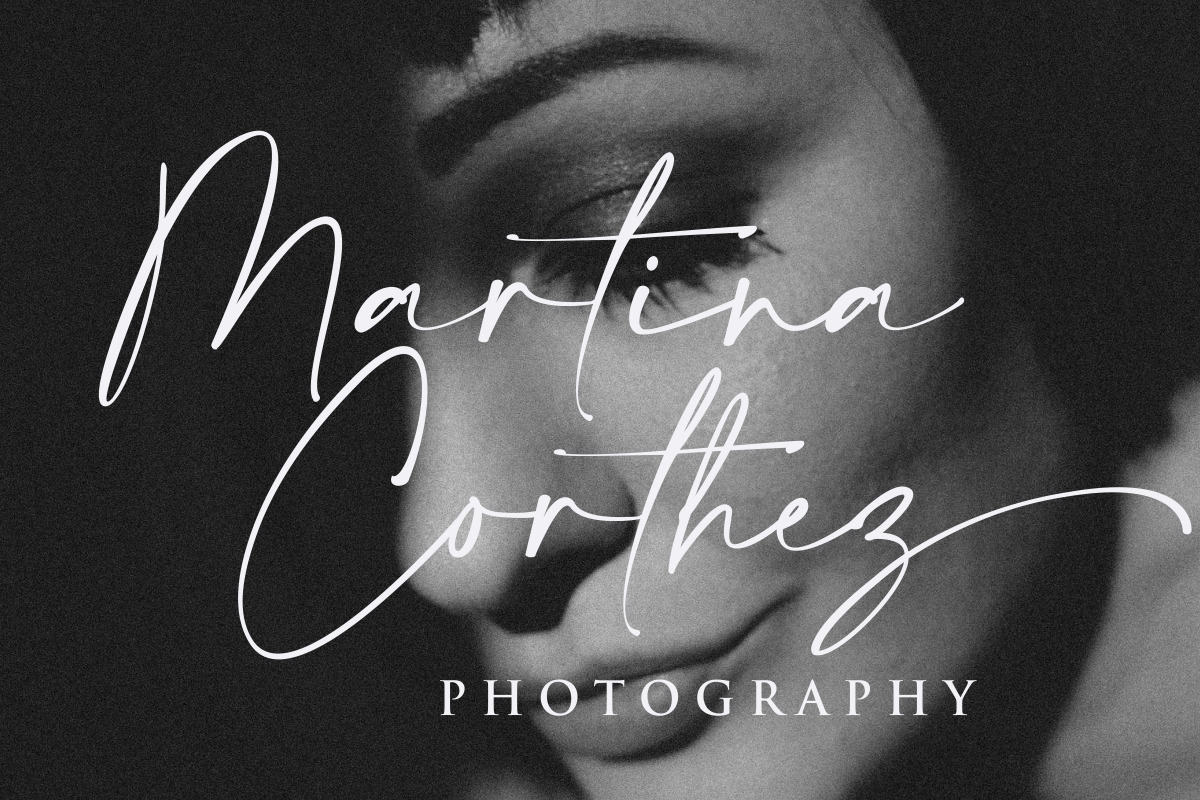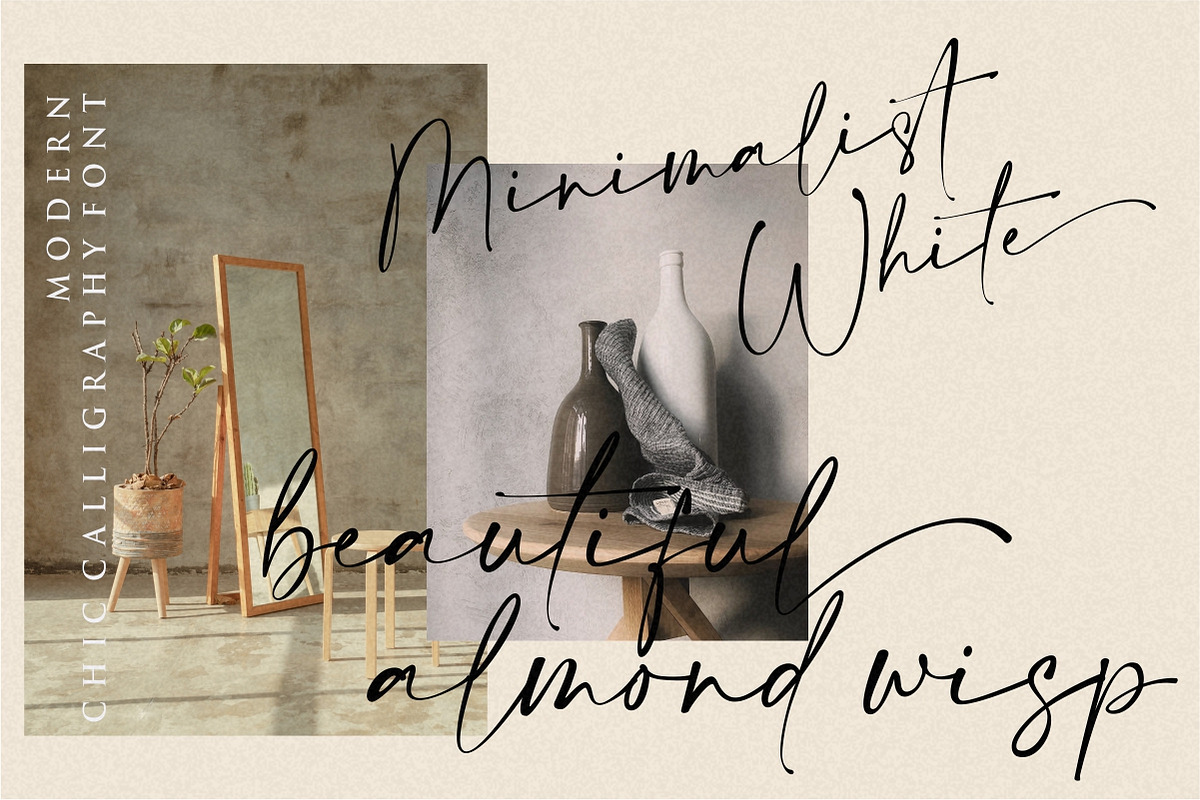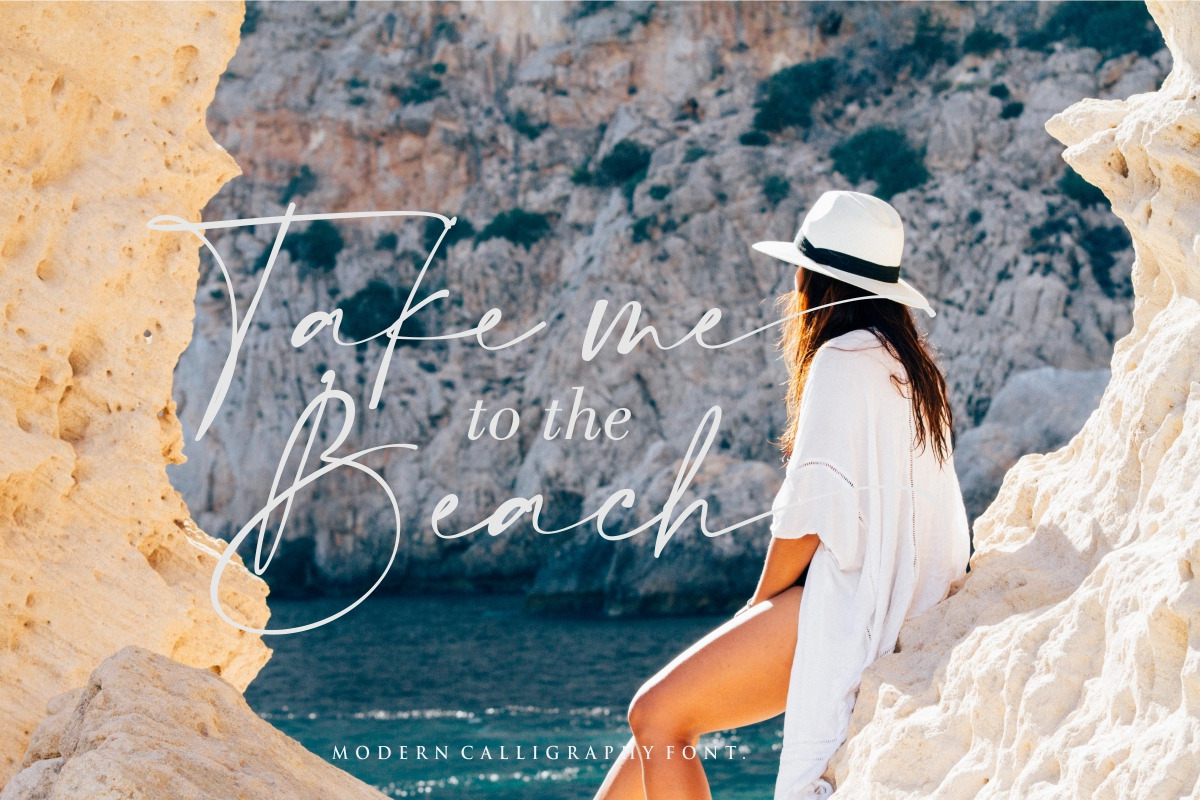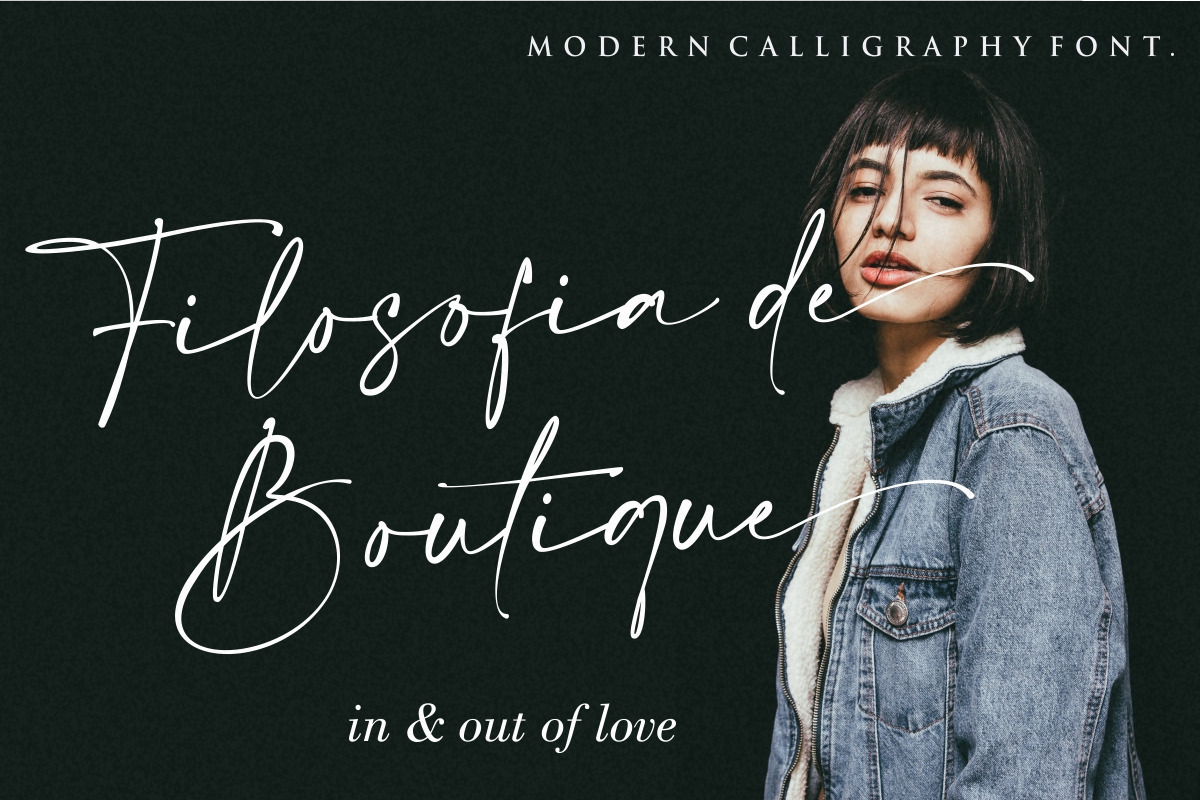
Amalfi Coast is a modern chic calligraphy font with magical pressure. This font is perfect for creating signature logos and watermarks for photography studios or wedding invitations, best for initial or branding logo signatures.
The font includes full set of beautifull hand lettered uppercase and lowercase letters, numerals, a large range of punctuation and ligatures. All lowercase letters include beginning and ending swashes, giving realistic hand-lettered style.